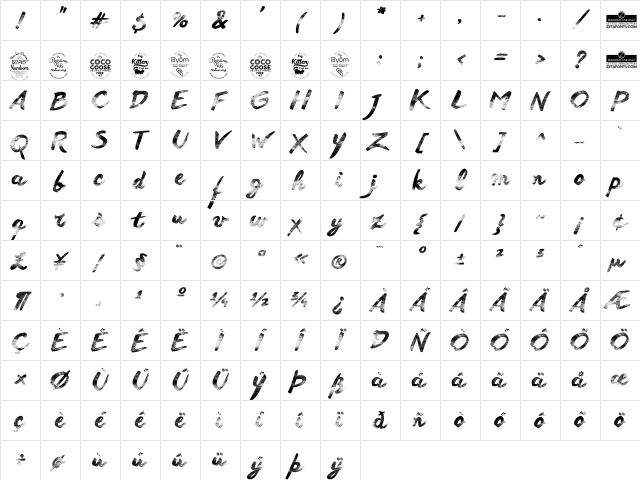
Another Wet Shabby Regular
Foundry: studio kmzero
Designer: Francesco Canovaro
Design Context for Another Wet Shabby
Another Wet Shabby is a composed and adaptable typeface that performs quietly and consistently across a wide range of design contexts.